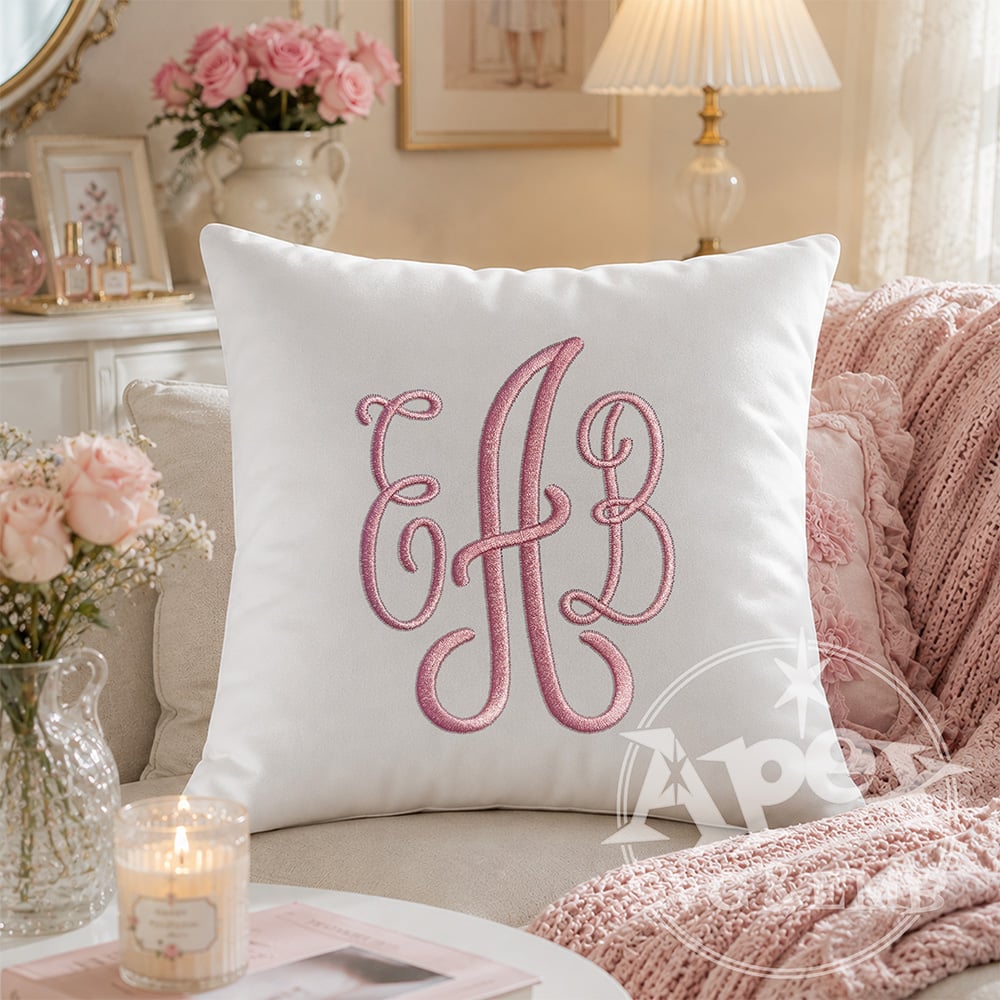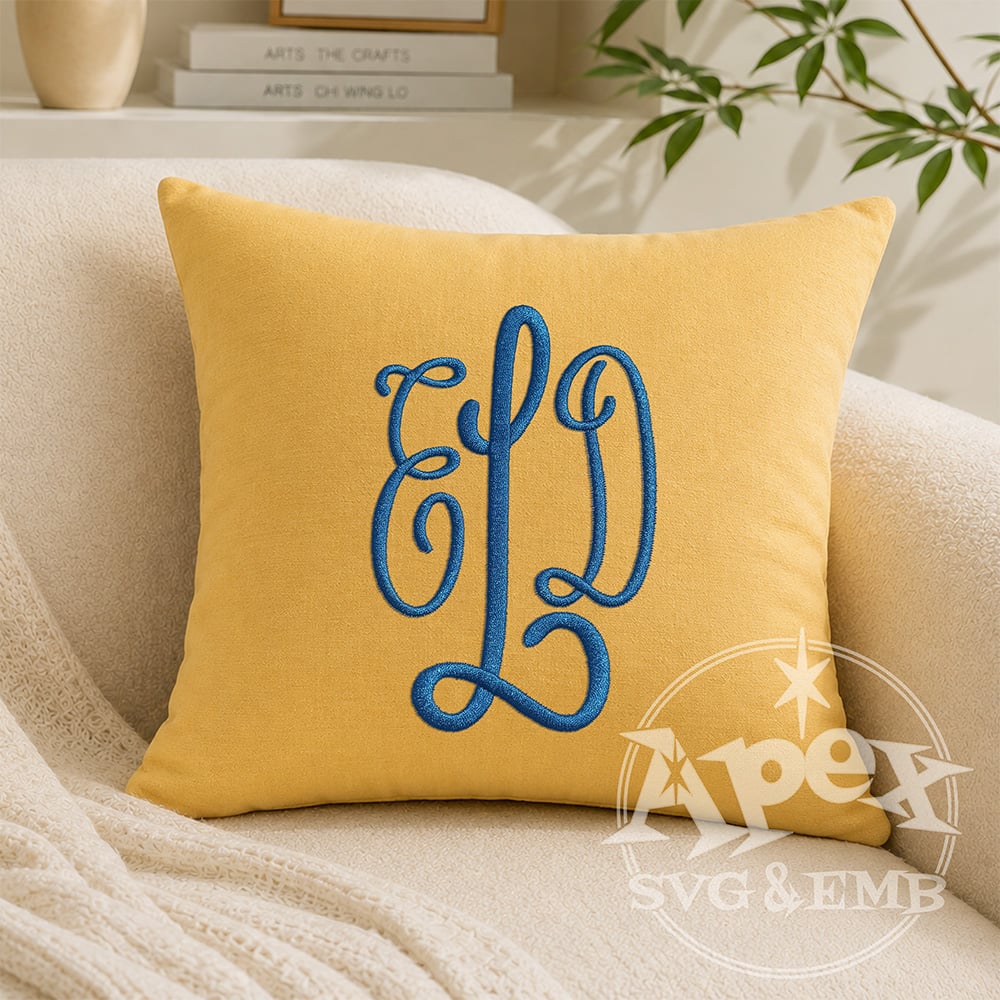
Pillow Talk Bespoke Monogram Embroidery Font
Conceived with the understated grace of classic Southern hospitality and the tailored precision of bespoke European linens, the Pillow Talk Bespoke Monogram embroidery font brings a breathless, timeless elegance to personal monogramming. Its sweeping gestures and layered two-color letterforms evoke the romantic grandeur of heirloom trousseaus, transforming simple textiles into cherished family legacies. Every curve invites the eye to linger, pairing graceful curvature with architectural balance to create custom monograms that feel both intimately personal and lavishly storied.
Digitized with impeccable structural integrity, this versatile monogram set includes complete uppercase letterforms optimized specifically for balanced three-letter crests across four versatile satin-stitch proportions:
Project Ideas for Pillow Talk Bespoke Monogram
The gentle, lyrical cadence of the Pillow Talk monogram makes it a natural focal point for upscale lifestyle and gift projects:
- Heirloom Bedding & Boudoir Accents: Stitch the center of crisp percale pillowcases, Euro shams, or duvet headers to establish a restful, five-star boutique ambiance.
- Bespoke Table Linens: Personalize pure Belgian linen dinner napkins and runners for festive celebrations, formal dinners, and milestone family gatherings.
- Bridal Trousseau & Wedding Keepsakes: Create treasured wedding gifts by adorning silk robes, honeymoon luggage tags, and heirloom bridal handkerchiefs.
- Resort & Poolside Living: Elevate heavy woven canvas totes, plush spa wraps, and poolside cabana towels with vibrant, contrasting thread combinations.
- Boutique Nursery Decor: Welcome a new arrival with velvety satin initials stitched onto cashmere baby blankets, quilted crib pillows, and diaper caddies.
Pillow Talk Bespoke Monogram Craft & Letterform Details
Translating traditional calligraphic monograms into fluid machine embroidery requires a deep respect for thread behavior, tension, and light refraction. The Pillow Talk letterforms were digitized from the ground up to prevent the stiffness and bulk often found in dense, intertwined lettering. Each stroke features dynamically programmed satin pathing that directs the thread sheen around gentle turns, capturing radiant highlights from every angle.
The two-color architecture creates a tactile, three-dimensional relief where initial strokes embrace and layer cleanly across secondary letters without creating thick, needle-deflecting overlap zones. Subtle travel stitches tuck discreetly beneath dense underlay paths, delivering razor-sharp letter edges and whisper-soft flexibility that drapes naturally against fine cotton, linen, and silk.